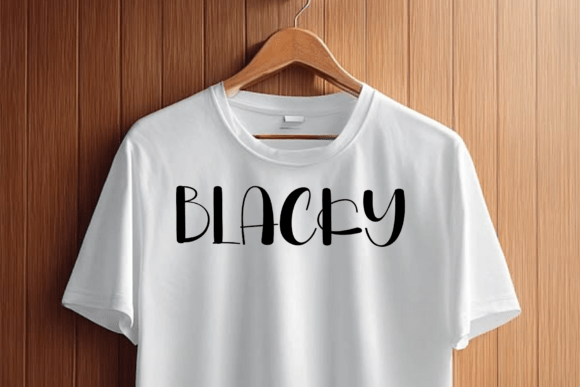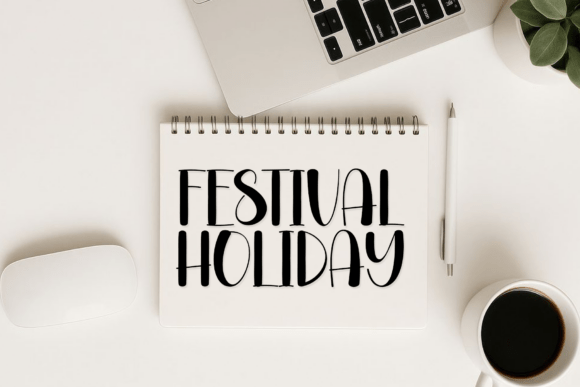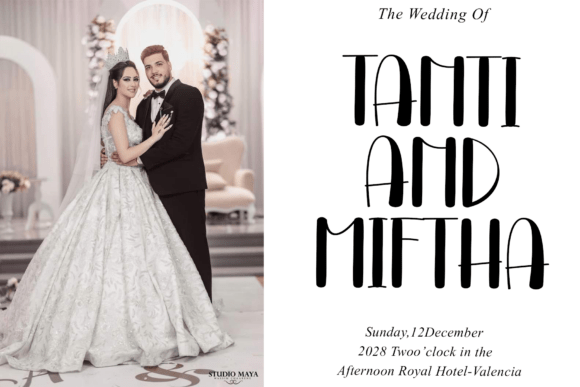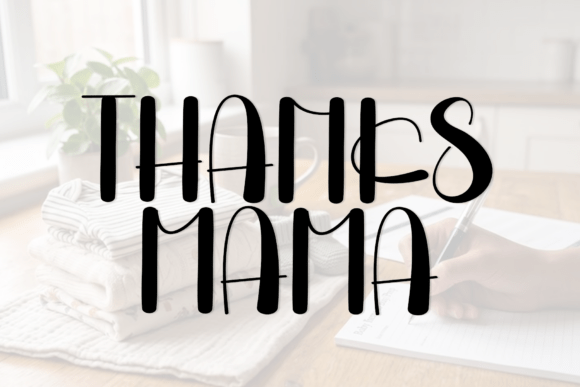
Baby Planner Font: Elevate Your Design with a Touch of Elegance
In the world of typography, fonts play a crucial role in conveying the tone and personality of a brand or design. For those seeking a unique and professional look, the Baby Planner Font is an excellent choice. This modern handwritten font is designed to evoke a sense of clarity and crisp elegance, making it perfect for various design applications.
The Characteristics of Baby Planner Font
Baby Planner Font boasts tall, thin strokes with a subtle, airy slant, which gives it a refined aesthetic that feels fresh and modern. Its clean and approachable style makes it an ideal choice for travel photography, branding for outdoor gear, and sophisticated web design. The font’s unique characteristics make it stand out from other handwritten fonts, offering a distinctive look that can elevate any design.
Design Applications for Baby Planner Font
The versatility of Baby Planner Font makes it suitable for a wide range of design applications. Here are a few examples:
- Travel Photography: The font’s clean and airy feel makes it perfect for travel photography, where a sense of adventure and freedom is often conveyed. Use Baby Planner Font to add a touch of elegance to your photo captions or titles.
- Outdoor Gear Branding: For outdoor gear brands, Baby Planner Font offers a sophisticated and modern look that can help establish a strong brand identity. Its refined aesthetic makes it suitable for branding materials, such as logos, packaging, and marketing collateral.
- Sophisticated Web Design: In web design, typography plays a crucial role in creating a user-friendly and visually appealing interface. Baby Planner Font can add a touch of elegance to your website, making it perfect for headers, titles, and other design elements.
Why Choose Baby Planner Font?
With so many fonts available, why choose Baby Planner Font? Here are a few reasons:
- Unique and Professional: Baby Planner Font offers a unique and professional look that can help your design stand out from the crowd.
- Versatile: The font’s versatility makes it suitable for a wide range of design applications, from travel photography to web design.
- Elegant and Refined: The font’s elegant and refined aesthetic makes it perfect for designs that require a touch of sophistication.
Tips for Using Baby Planner Font
To get the most out of Baby Planner Font, here are a few tips:
- Use it as a Headline Font: Baby Planner Font is perfect for headlines and titles, where its elegant and refined aesthetic can shine.
- Pair it with Other Fonts: Experiment with pairing Baby Planner Font with other fonts to create a unique and visually appealing typography combination.
- Adjust the Font Size: To add emphasis or create visual hierarchy, adjust the font size of Baby Planner Font to create a sense of balance and harmony.
In conclusion, Baby Planner Font is a unique and professional font that can elevate your design with a touch of elegance. Its clean and approachable style makes it perfect for various design applications, from travel photography to web design. With its refined aesthetic and versatility, Baby Planner Font is an excellent choice for designers and crafters seeking a modern handwritten font.